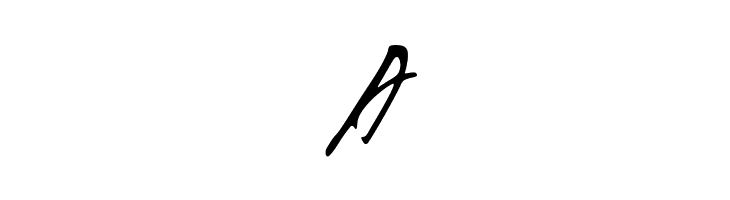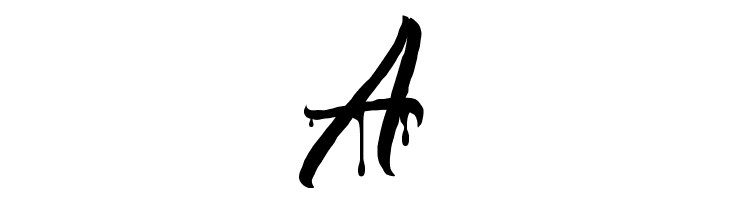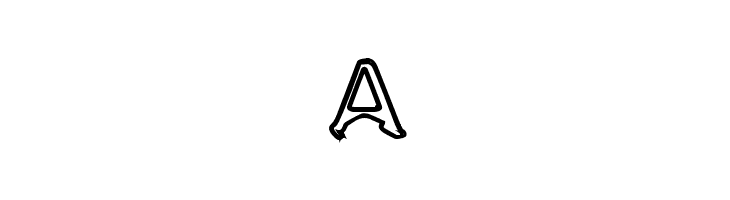
An elegant and modern font with high contrast and unique flourishes.
An artistic and elegant font with decorative uppercase and stylish lowercase letters.
A dynamic, fluid handwritten script with elegant cursive strokes.
A bold, geometric font with a modern and structured design.
A bold, hand-drawn font with a playful, three-dimensional effect.
A stylish script font with elegant, flowing cursive strokes.
A bold, modern font with strong geometric shapes and clean lines.
A bold, graffiti-inspired script font with a dripping effect.
A bold, geometric font with an industrial, blocky design.
A bold, brushstroke-style font with dynamic, textured characters.
A dynamic and elegant script font with fluid, cursive letterforms.
A fluid and elegant script font with interconnected cursive letters.
A bold, dynamic font with sharp, jagged edges and an energetic style.
A bold, dynamic font with sharp, angular strokes and a graffiti-like style.
A bold, dynamic font with sharp, angular strokes and an italicized style.
A bold, angular font with sharp, dynamic lines and an energetic style.
A bold, dynamic font with sharp, angular strokes conveying energy and intensity.
A bold, italic font with sharp, angular edges and dynamic movement.
A bold, angular font with sharp, dynamic strokes, ideal for energetic designs.
A bold, italicized font with sharp, angular strokes and a dynamic, aggressive style.
A bold, italicized font with sharp, angular strokes conveying speed and intensity.
A bold, hand-drawn font with dynamic, slanted characters.
A bold, brush-style font with dynamic and expressive strokes.
A bold, italicized font with dynamic, brush-like strokes.
A bold, italic script font with dynamic, brush-like strokes.
A light, condensed font with a modern yet vintage feel, featuring elegant and refined strokes.
A modern, clean sans-serif font with uniform stroke width.
A bold, modern sans-serif font with strong, uniform strokes.
A clean, modern typeface with uniform stroke width and geometric style.
A graceful, handwritten cursive font with thin, elegant strokes.